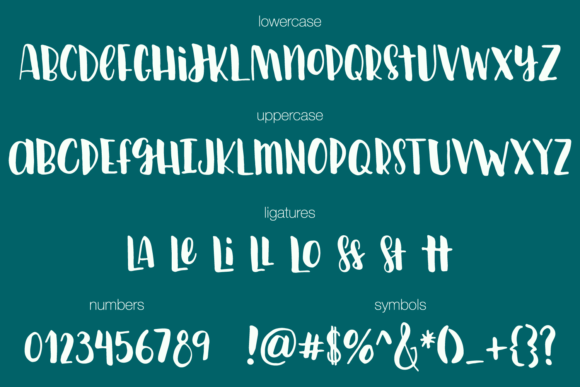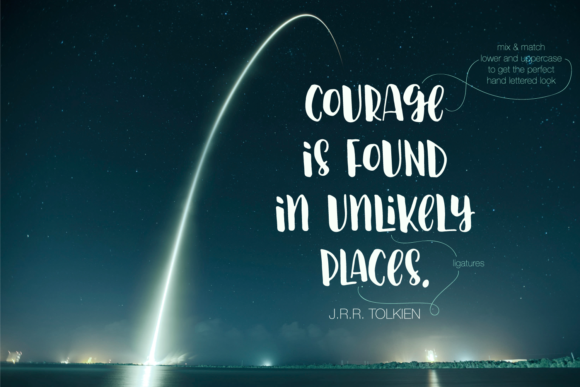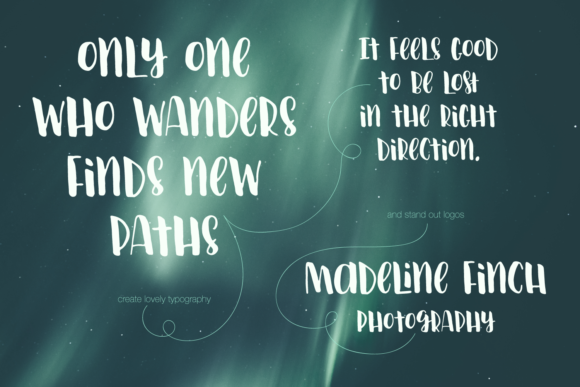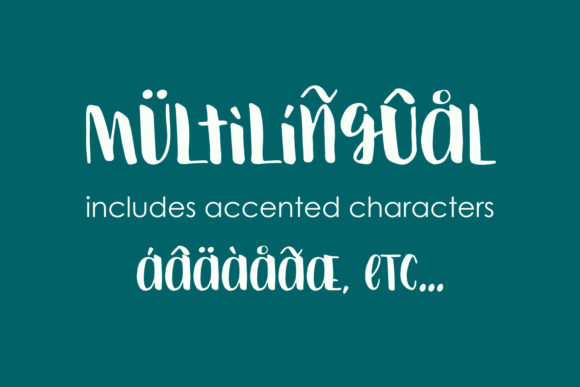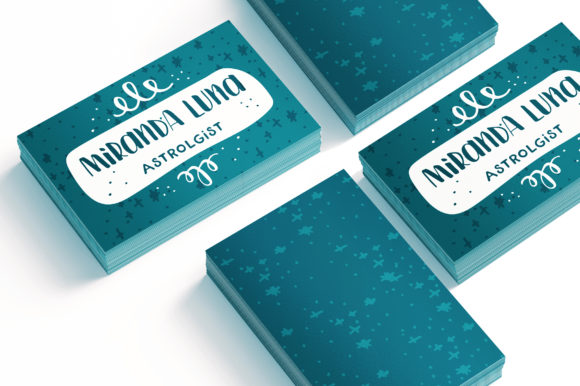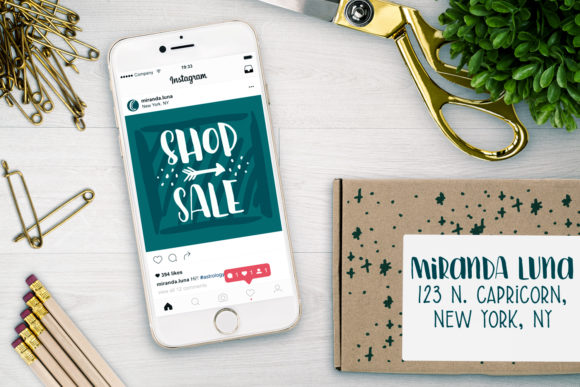
Discover the Charm of Curiosity Font: A Playful Hand-Lettered Brush Font
Are you tired of using the same old fonts in your designs? Look no further than Curiosity Font, a beautiful hand-lettered brush font that’s sure to capture your heart. With its playful look and feel, Curiosity Font is the perfect addition to any design project that needs a touch of personality and whimsy.
What is Curiosity Font?
Curiosity Font is a hand-lettered brush font that’s been carefully crafted to bring a sense of curiosity and playfulness to your designs. Each letter has been lovingly drawn by hand, giving the font a unique and organic feel that’s perfect for a wide range of projects, from invitations and greeting cards to posters and social media graphics.
Key Features of Curiosity Font
- Hand-lettered with love: Each letter has been carefully drawn by hand, giving Curiosity Font a unique and personal touch.
- Brush font: The font has a beautiful, brush-like quality that’s perfect for adding a touch of texture and whimsy to your designs.
- Playful and fun: Curiosity Font is the perfect choice for designers who want to add a playful touch to their work.
Why Choose Curiosity Font?
So why choose Curiosity Font over other fonts on the market? Here are just a few reasons why designers and crafters are falling in love with this beautiful hand-lettered brush font:
- Unique and original: Curiosity Font is a one-of-a-kind font that’s sure to make your designs stand out from the crowd.
- Versatile: Curiosity Font can be used for a wide range of projects, from digital designs to print materials.
Project Ideas for Curiosity Font
Curiosity Font is the perfect choice for a wide range of projects, including:
- Invitations and greeting cards: Add a personal touch to your invitations and greeting cards with Curiosity Font.
- Posters and flyers: Use Curiosity Font to create eye-catching posters and flyers that will grab attention.
- Social media graphics: Add a touch of personality to your social media graphics with Curiosity Font.
- Branding and packaging: Use Curiosity Font to create unique and memorable branding and packaging.
Curiosity Font is a beautiful hand-lettered brush font that’s sure to capture your heart. With its playful look and feel, it’s the perfect addition to any design project that needs a touch of personality and whimsy. Whether you’re a designer, crafter, or DIY enthusiast, Curiosity Font is a must-have font that’s sure to inspire your creativity.